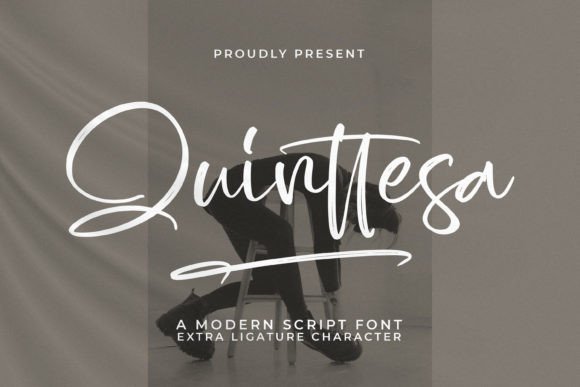
Introducing Quintessa, an elegant and captivating script font that oozes sophistication and luxury. With its enchanting curves and remarkable finesse, Quintessa is more than just a collection of characters; it's an artistic masterpiece that breathes life into your creative vision. Imagine the allure it will bring to your logos, branding projects, and homeware designs, leaving an unforgettable impression on all who behold it.
Step into a world adorned with elegance, where products adorned with Quintessa's script become irresistible, and shopping bags adorned with its graceful letters turn into fashion statements. Let Quintessa's timeless beauty flow effortlessly onto T-shirts, book covers, and business cards, imparting a sense of exclusivity and uniqueness that sets your creations apart. Elevate your invitations and greeting cards with Quintessa's refined touch that adds a layer of charm and grace to every occasion.
Quintessa's versatility extends far beyond traditional mediums. Its essence seamlessly blends with photography, adding a touch of magic and an ethereal aura to your captured moments. Watermarks and special events take on a whole new meaning when adorned with Quintessa's distinctive script, creating a visual experience that captivates and intrigues. Whether you're a seasoned designer or a creative enthusiast, Quintessa is the perfect companion to unleash your imagination and make your visions a reality.
But Quintessa is more than just a font; it's an emotion, a story waiting to be told. Whether you're a design professional or a hobbyist seeking to add a touch of sophistication to your projects, Quintessa holds the key to unlocking the extraordinary. Its distinctive style adds a touch of refinement, making your creations stand out in a world saturated with ordinary fonts. So, why settle for the mundane when you can immerse yourself in the realm of elegance and luxury?
Dive into the world of Quintessa and embrace the symphony of emotions it evokes. Let its graceful curves inspire you, its timeless beauty captivate you, and its boundless versatility empower you to create masterpieces that leave a lasting impression. Discover the limitless possibilities and unlock the extraordinary with Quintessa. Embrace the allure of Quintessa, and embark on a creative journey where every project becomes a work of art.